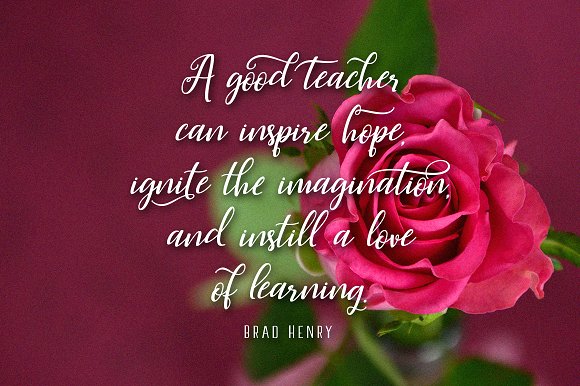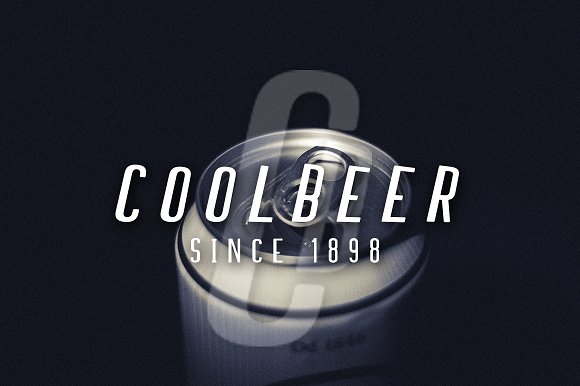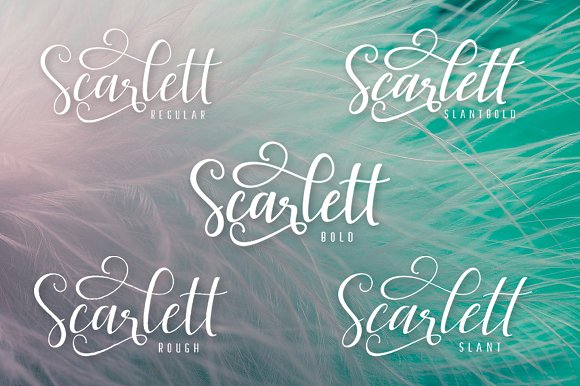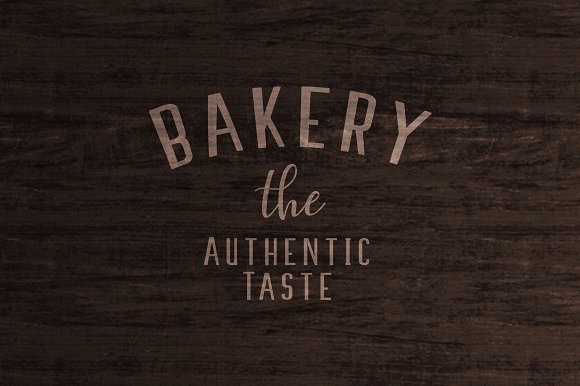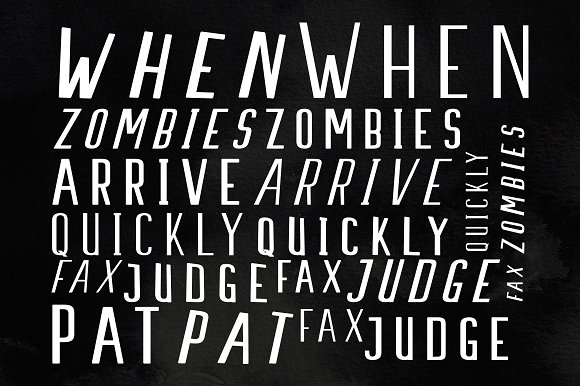
Scarlett Font
About Scarlett Font
The Scarlett Family consists out of 11 individual fonts in 2 complementary styles (5 Script fonts, 6 Sans Serif fonts).
The Script & Sans Serif mix great which allows you to use a single family for creating different styles of text. On top of that, the Script font is packed with extra swashes and swooshes.